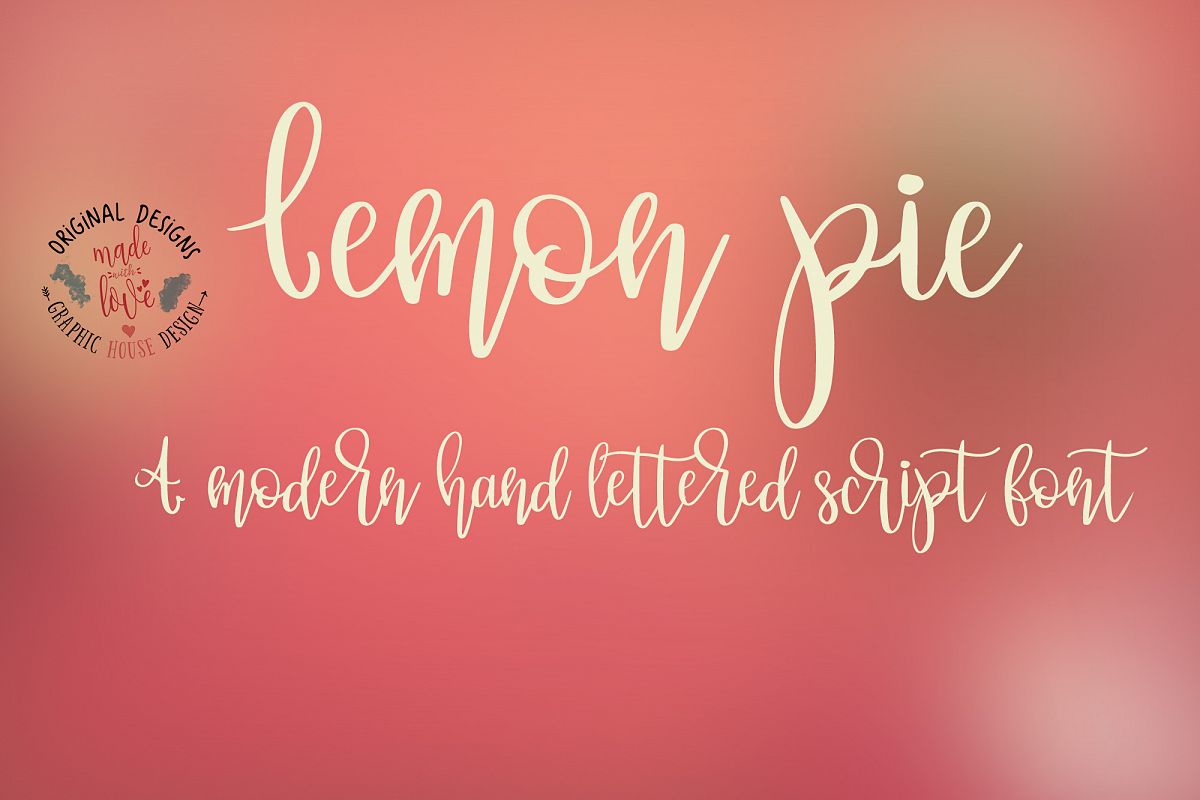
Lemon Pie Modern Hand Lettered Script Font
Lemonpie-Script
Lemon Pie is a Modern Hand Lettered Script Font with a tall R which makes the script stand out.
Modern, cute, playful and feminine are the words that best describe its character.
Contains all Capital and all Small Letters from A-Z.